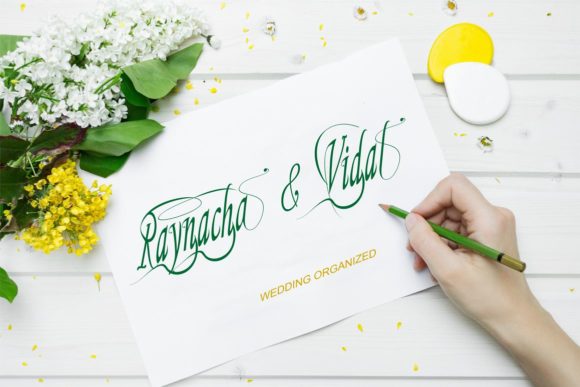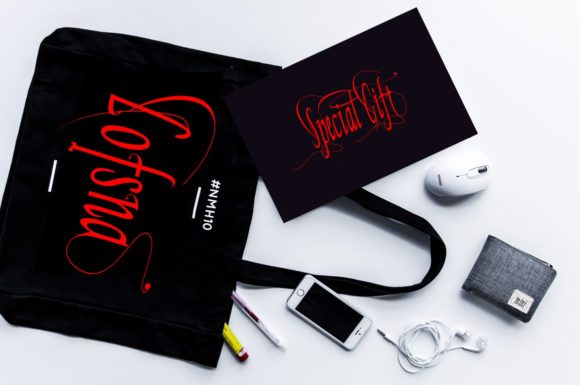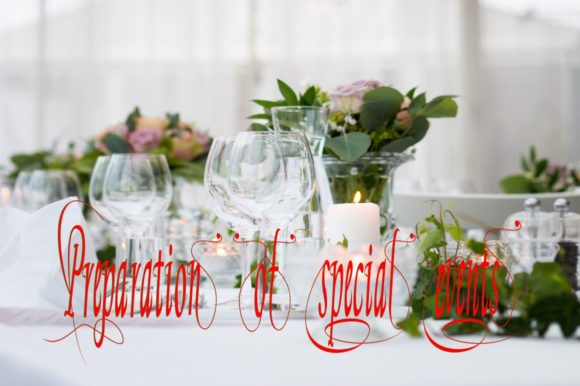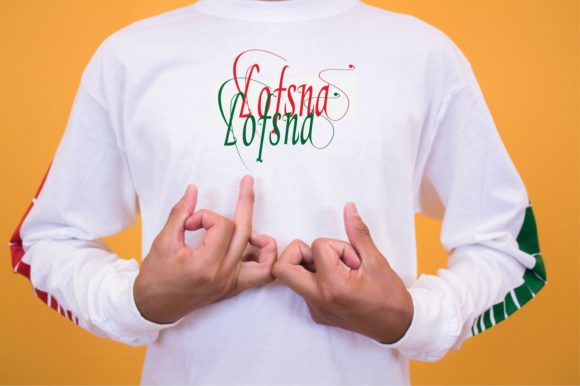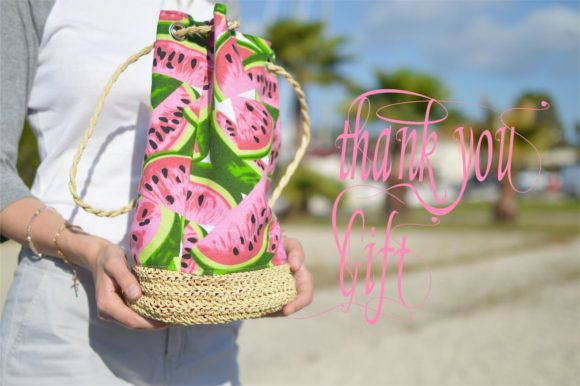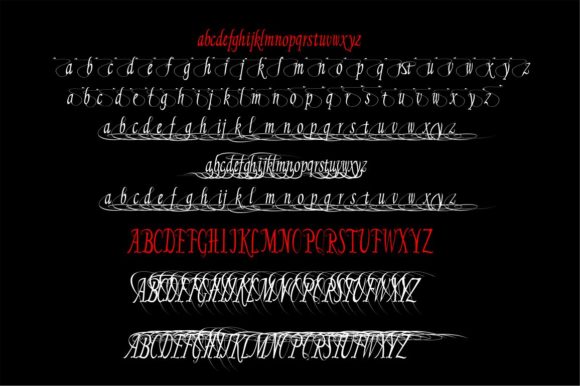
Special Gift Font
About Special Gift Font
Special Gift is a casual and cute handwritten font. It is a great choice for logos, product packaging, wedding invitations, branding and much more. It has gorgeous swashes that will take your designs to the next level!